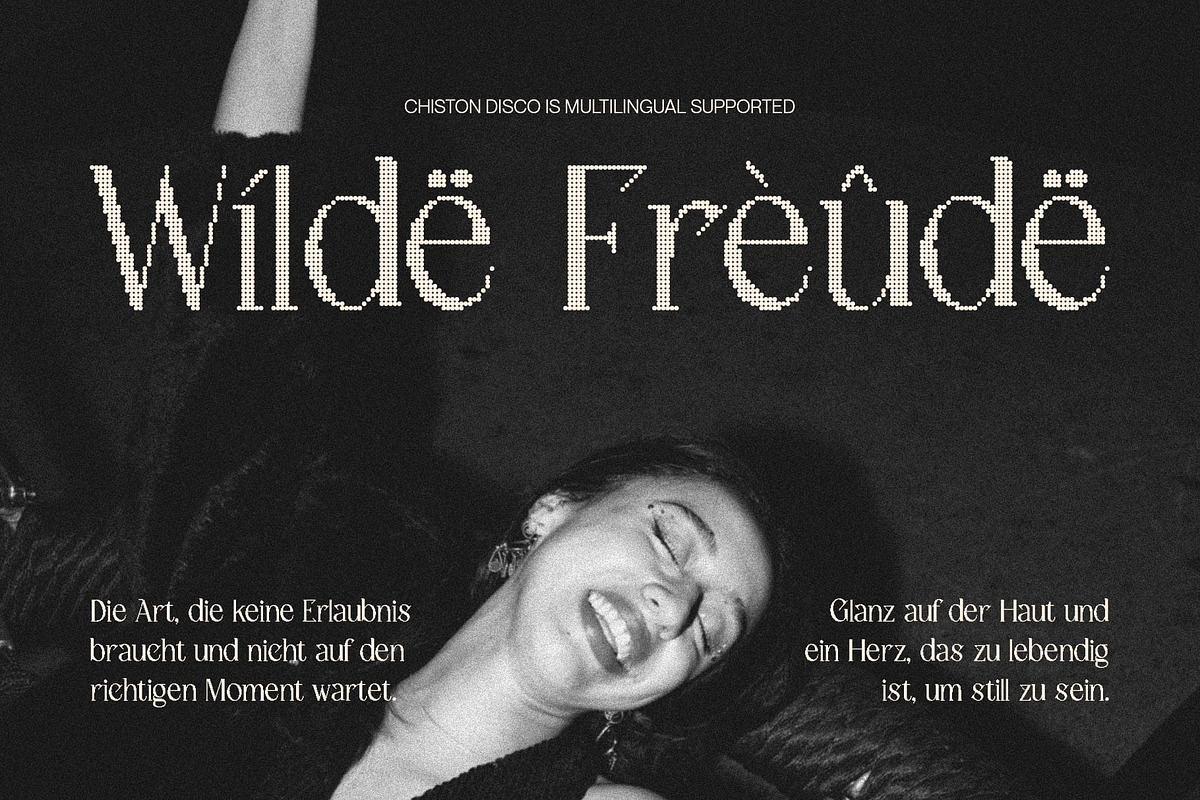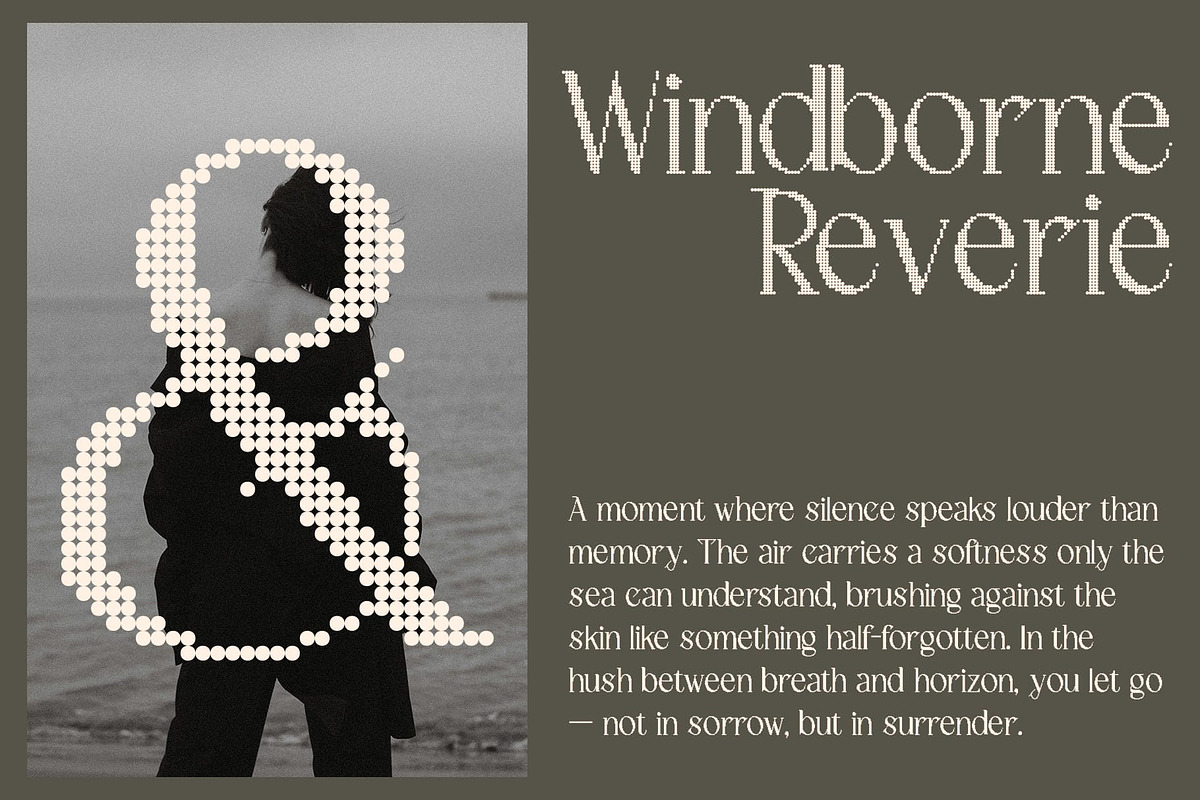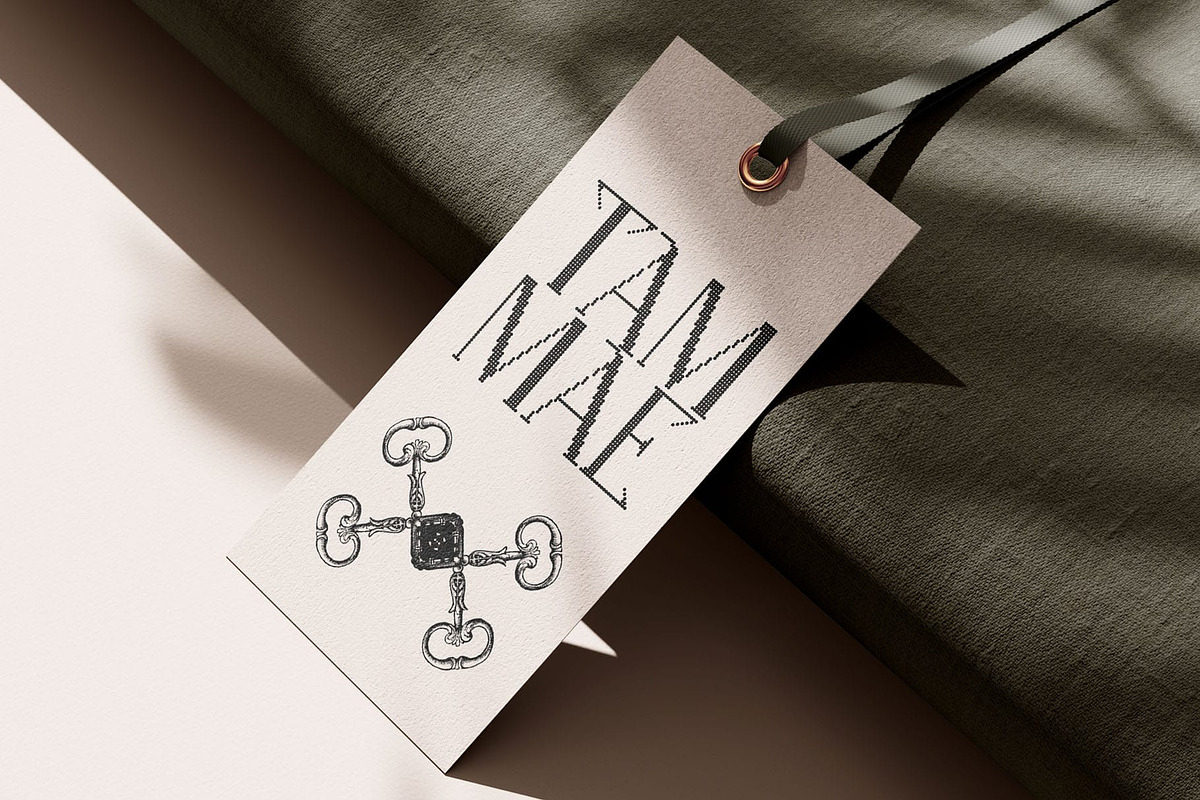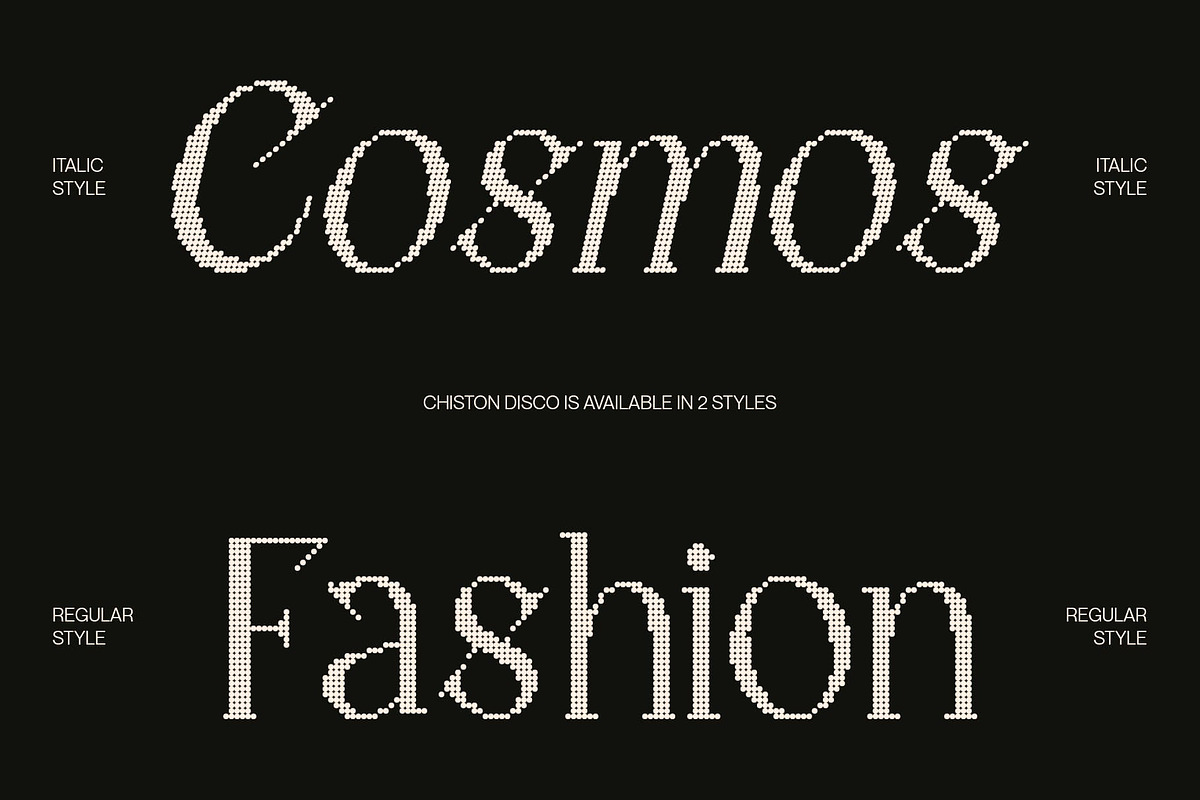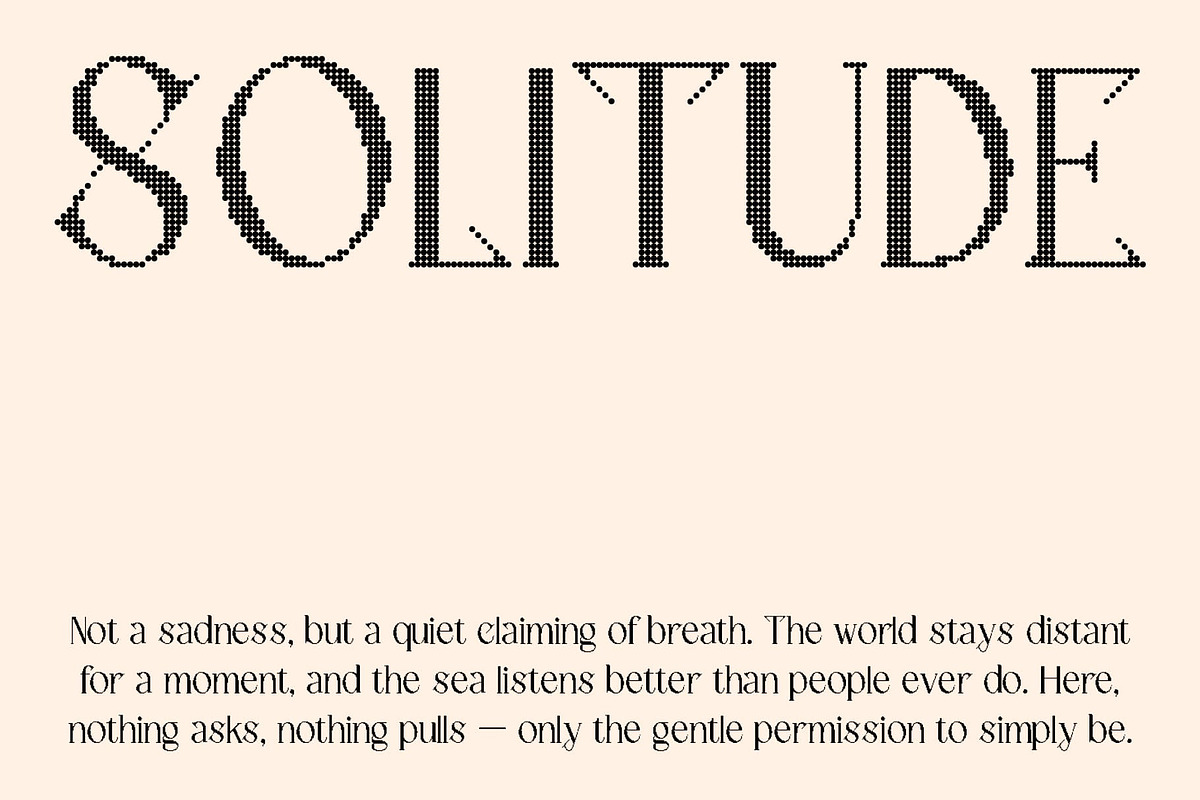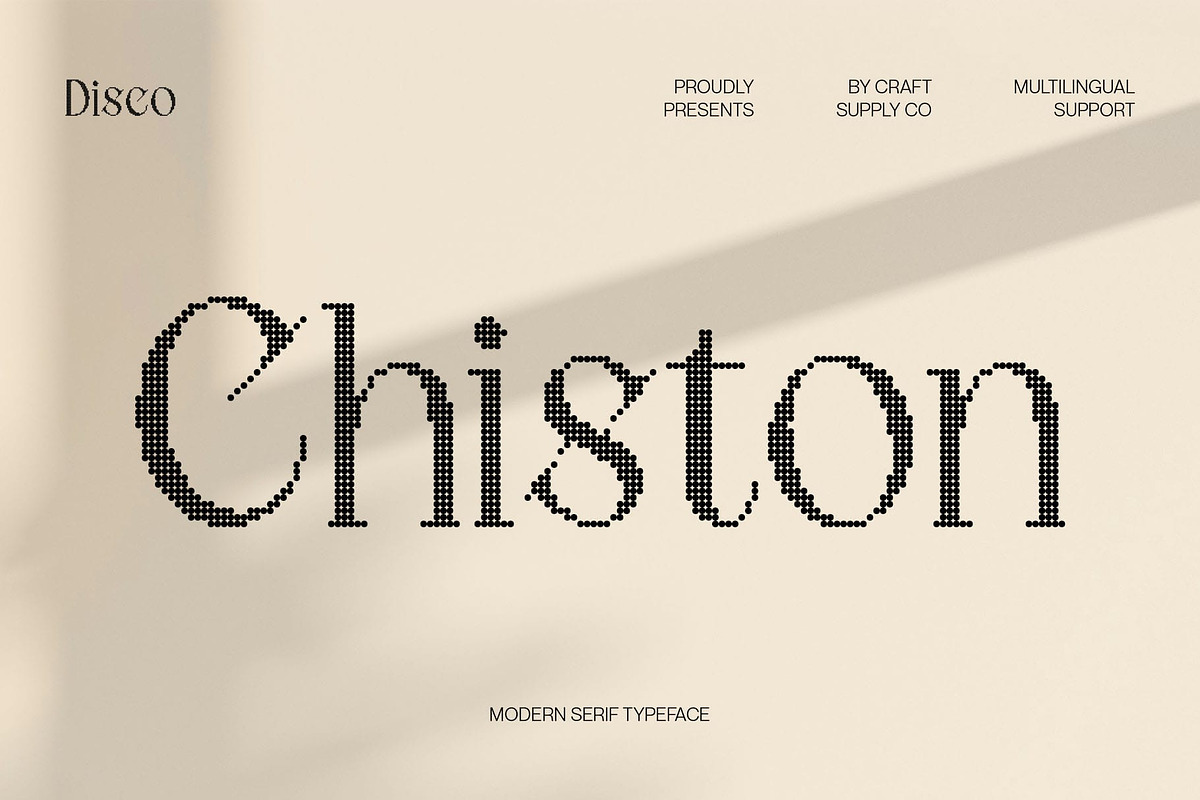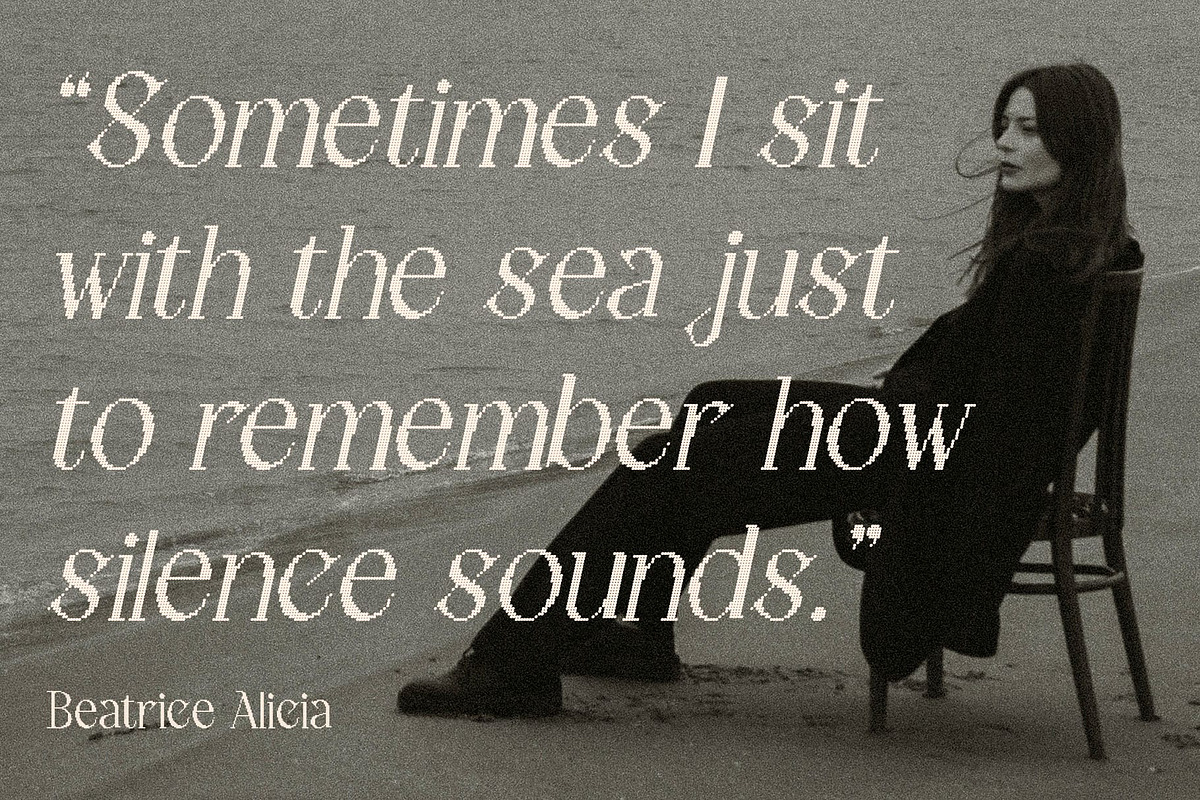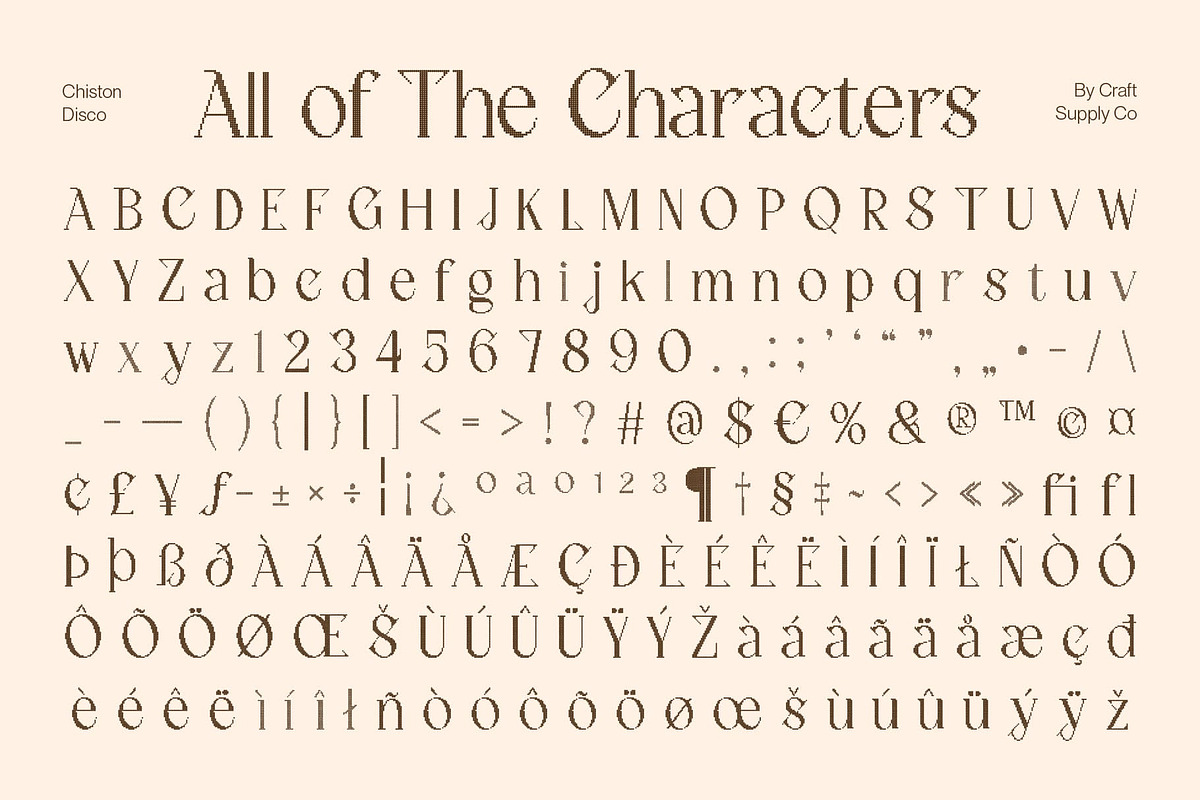
Chiston Disco
Chiston Disco – Classic Elegance with Modern Sparkle
Modern Classic Serif with Refined Style This is a modern classic serif font defined by its clean lines, sleek curves, and balanced proportions. Each letterform carries a sense of timeless sophistication, blending traditional serif grace with contemporary clarity. The result is a typeface that feels polished, confident, and captivating.
Disco Effect for Vibrant Glamour The disco effect adds a radiant shimmer and rhythmic energy to every character, giving the design a glamorous, lively, and eye-catching touch. This unique combination of refinement and sparkle infuses text with personality, making it ideal for projects that seek both class and charisma.
Perfect for Sophisticated Creative Use Ideal for luxury branding, editorial layouts, posters, and creative campaigns, bridges the gap between classic elegance and modern vibrancy. It’s a typeface that commands attention while maintaining refined taste, ensuring every design feels both stylish and memorable.
Timeless Form, Modern Glow This font brings together the grace of a classic serif with the energy of disco glamour, creating a font that shines with sophistication, confidence, and visual brilliance.
- Chiston Disco Regular
- Chiston Disco Italic